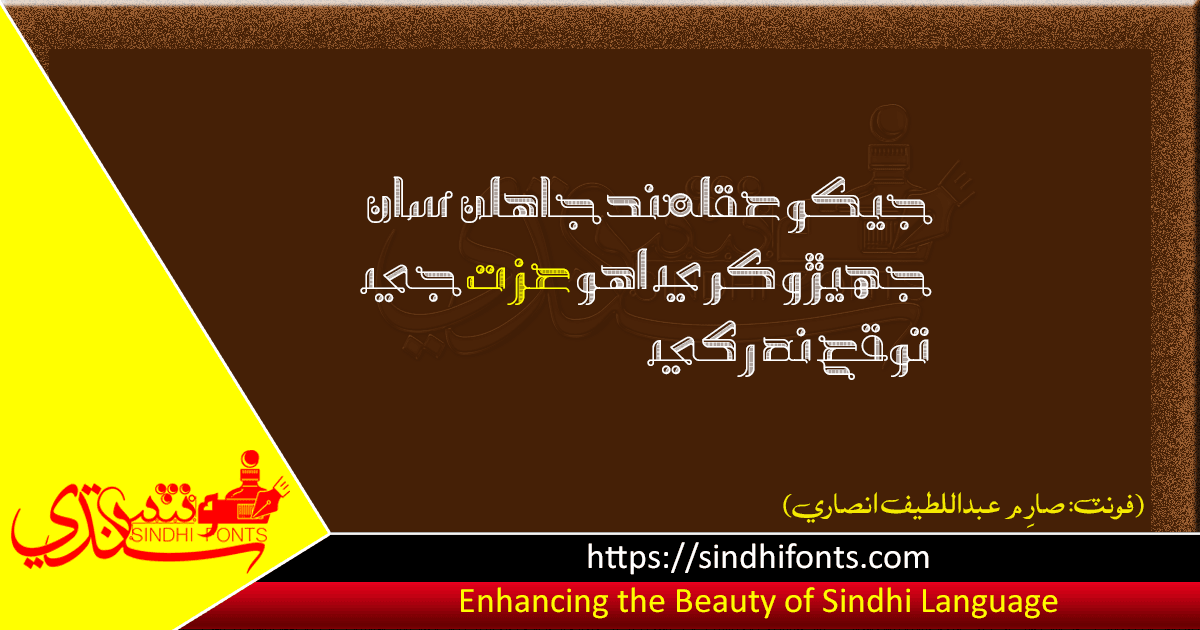
Stylish Sindhi Font Sarem Abdul Lateef Ansari
Stylish Sindhi font Sarem Abdul Lateef Ansari for your writings particularly for the Headings. It confirms the latest Unicode standards also. Sarem Abdul Lateef Ansari is free of charge to download and install on your computer.